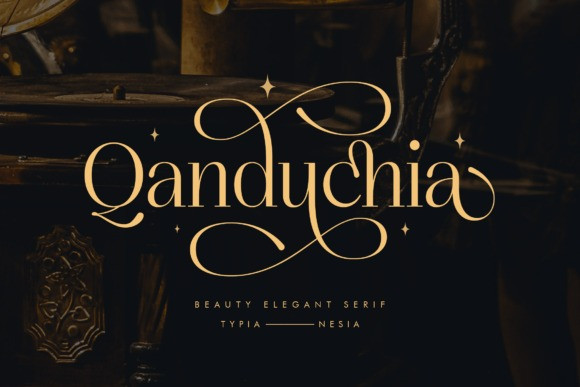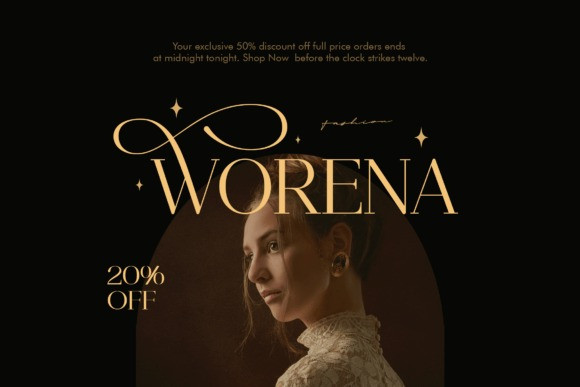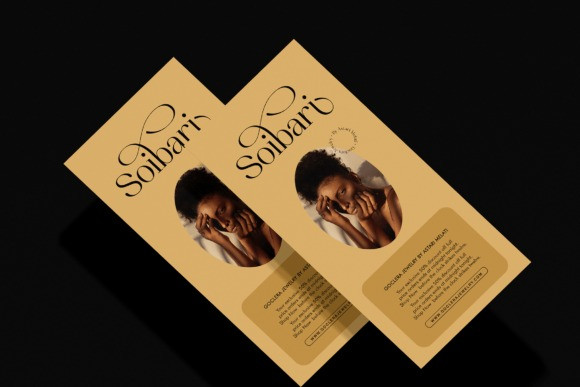
Qanduchia Font
Qanduchia – Classy Elegant Serif – Classic Luxury Royal Font
Qanduchia is perfect for your upcoming projects such as luxury logo and branding, classy editorial design, woman’s magazines, cosmetic brands, fashion promotional, art gallery branding, museum, boutique branding, stationery design, blog design, modern advertising design, card invitation, art quote, home decor, book/cover title, special events and any more. This font is PUA encoded, which means you can access all of the glyphs and swashes with ease!